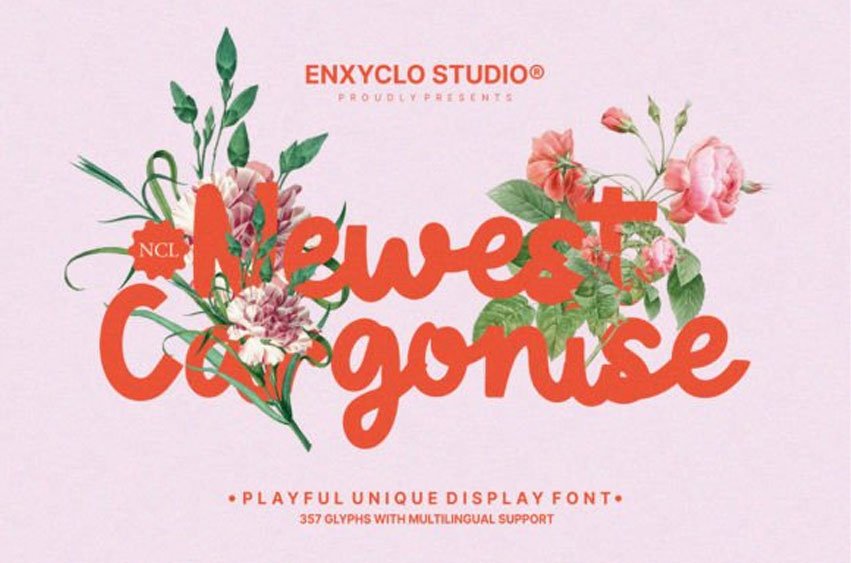
Newest Cargonise Font is a playful handwritten display font. Masterfully designed to become a true favorite, this font has the potential to bring each of your creative ideas to the highest level! It was purposely crafted to be used in large point sizes, although it doesn’t lose its magic in small point sizes.
It is perfect for headlines, digital ads, magazines, websites, posters, branding, and logos. No matter the topic, this font will be an incredible asset to your font library, as it has the potential to elevate any creation. With this beautiful font, you can make your project stand out from the rest.